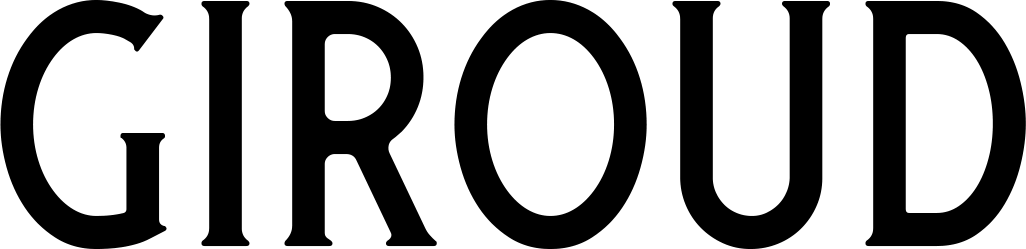
Giroud Font
Giroud font is one of the best retro fonts that has been introduced so far, with eight different types and grunge and stamp textures. This font only supports uppercase letters, and it has been recommended that it be used for captioning with no small characters and numbers.
This font has been designed to develop all kinds of beer labels for your convenience. You can have many benefits for your next retro movie posters.